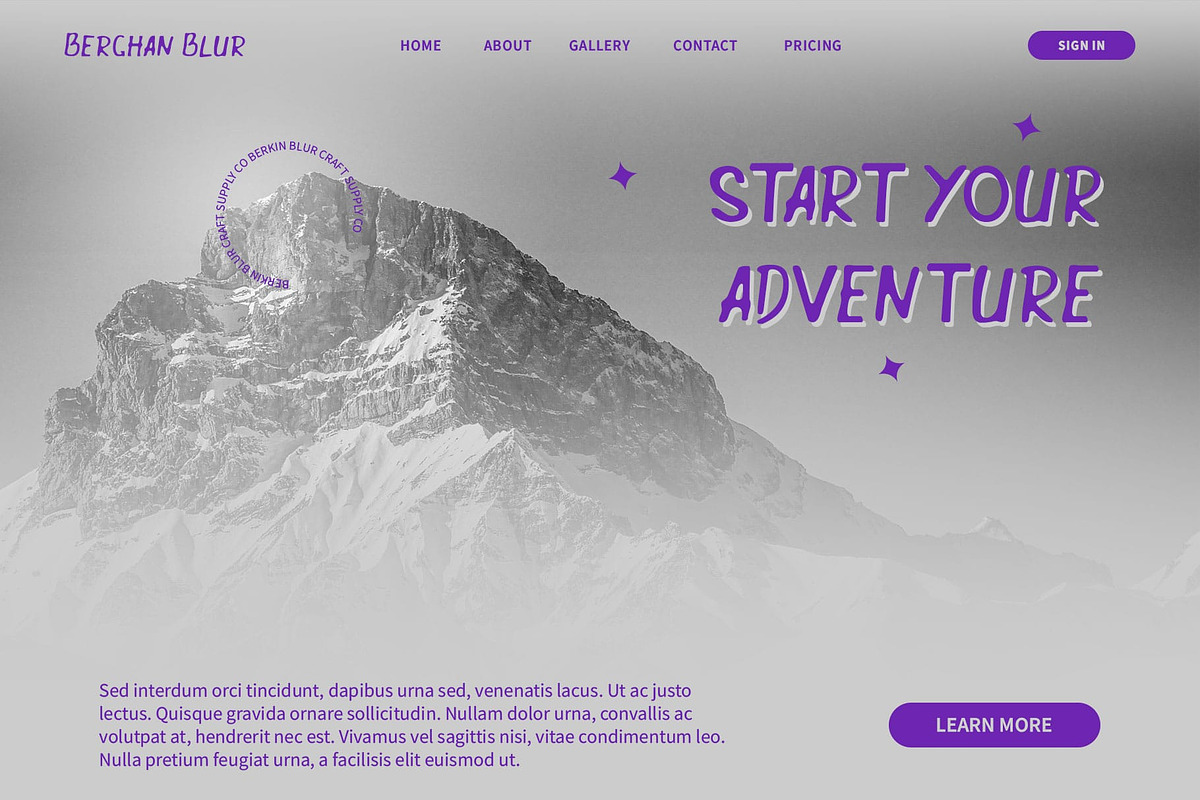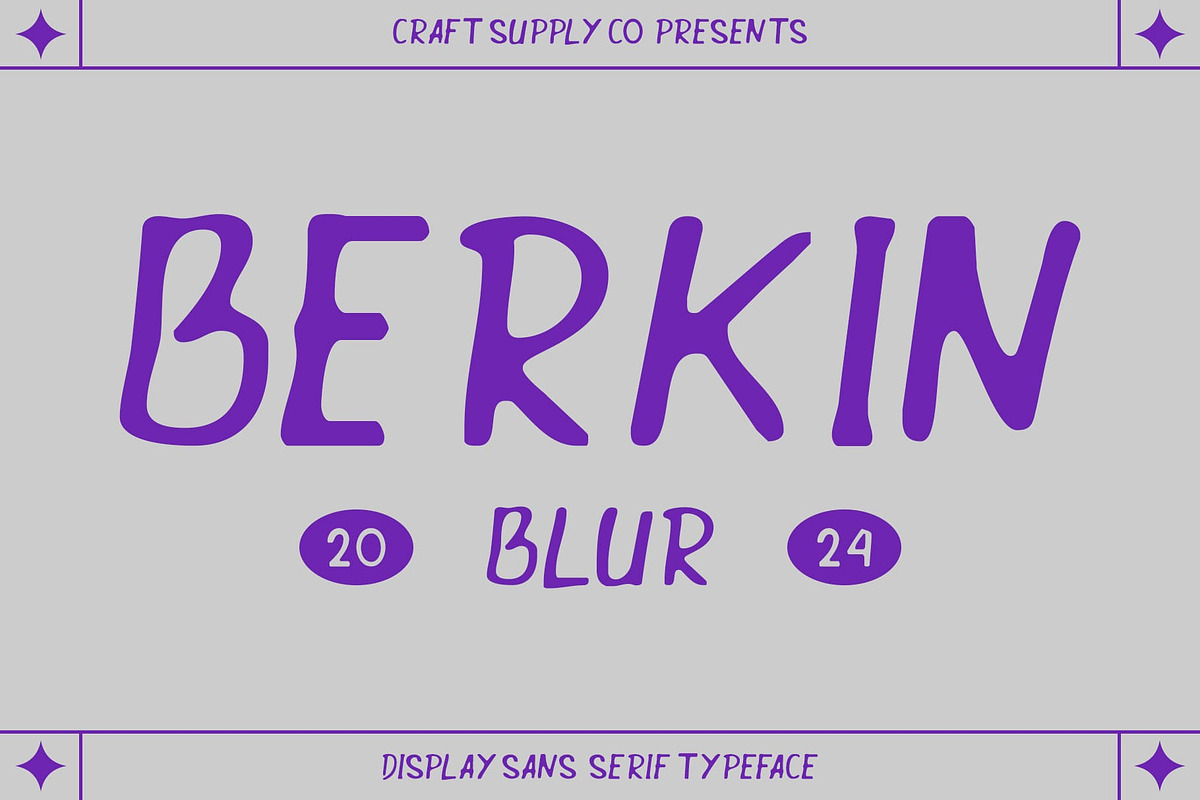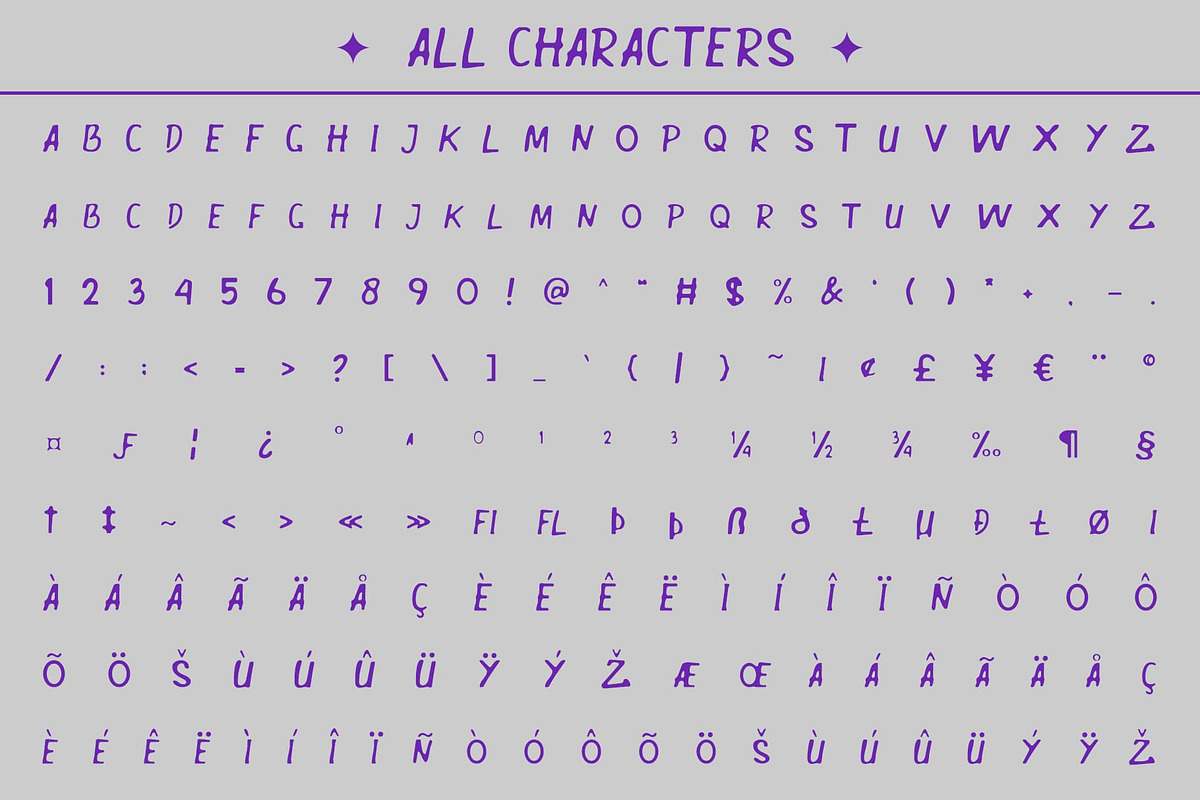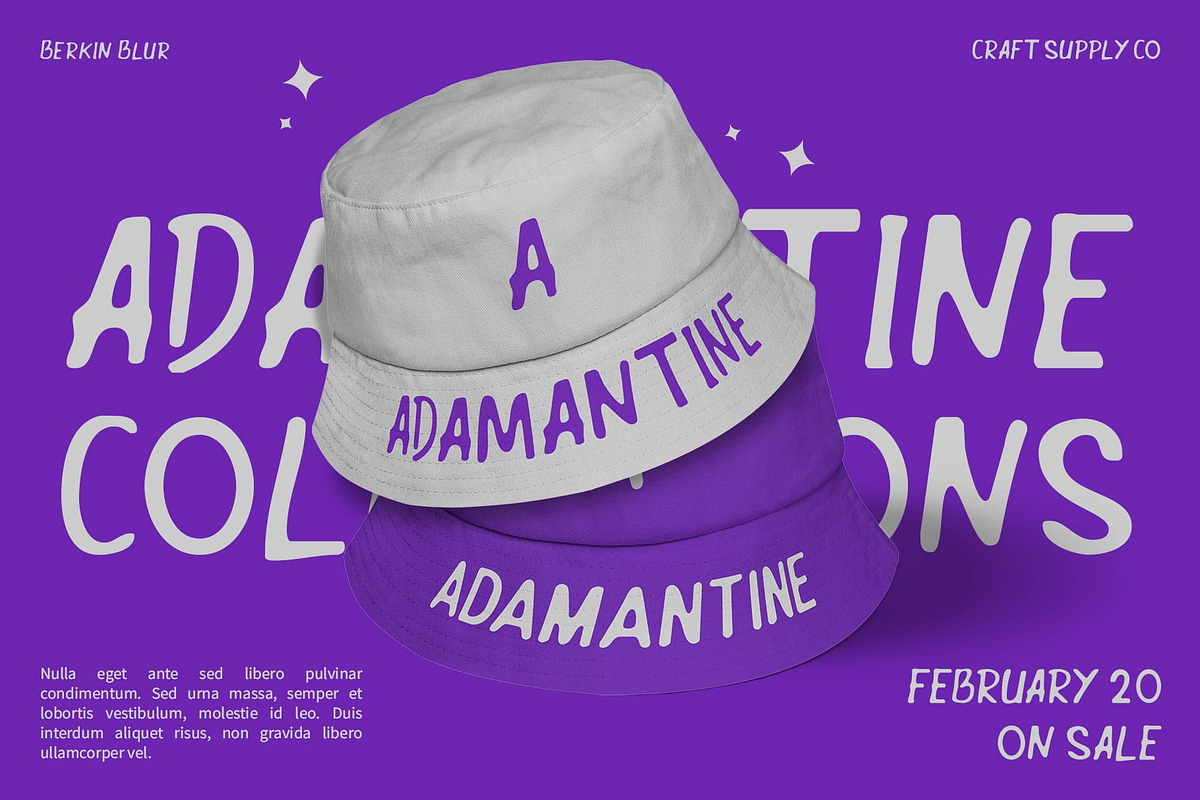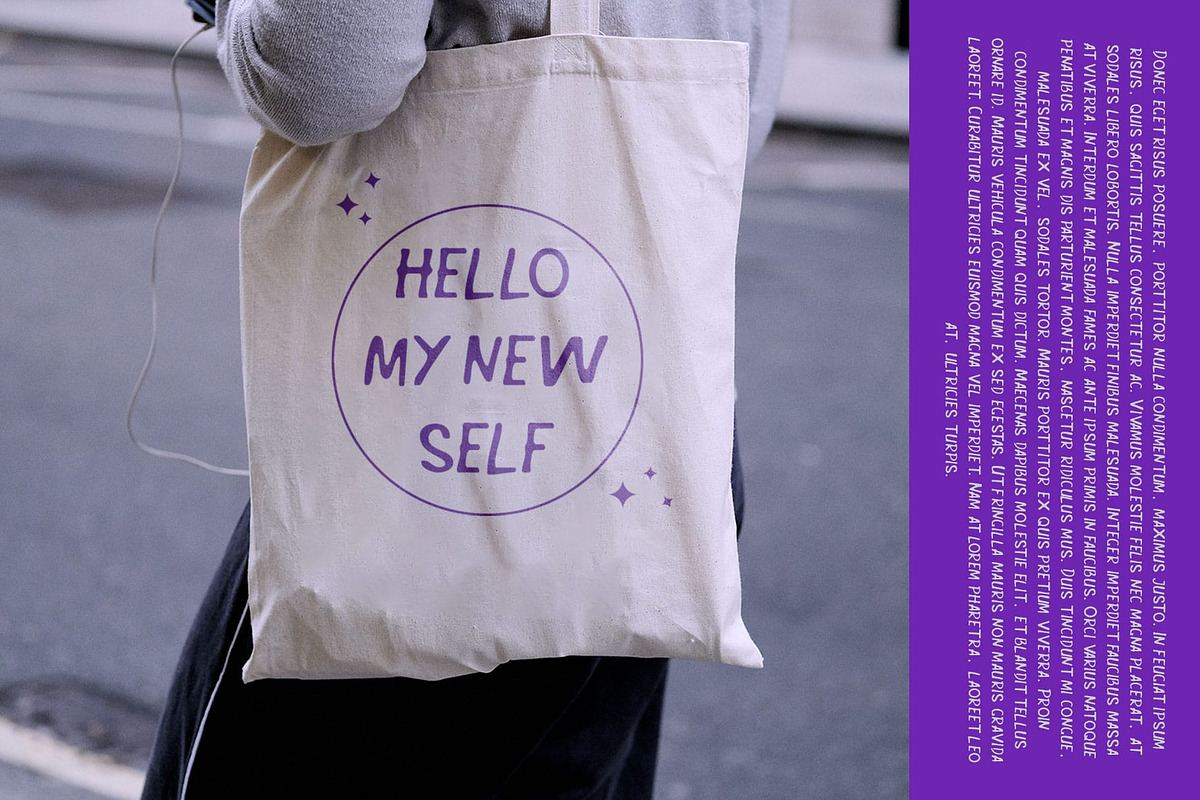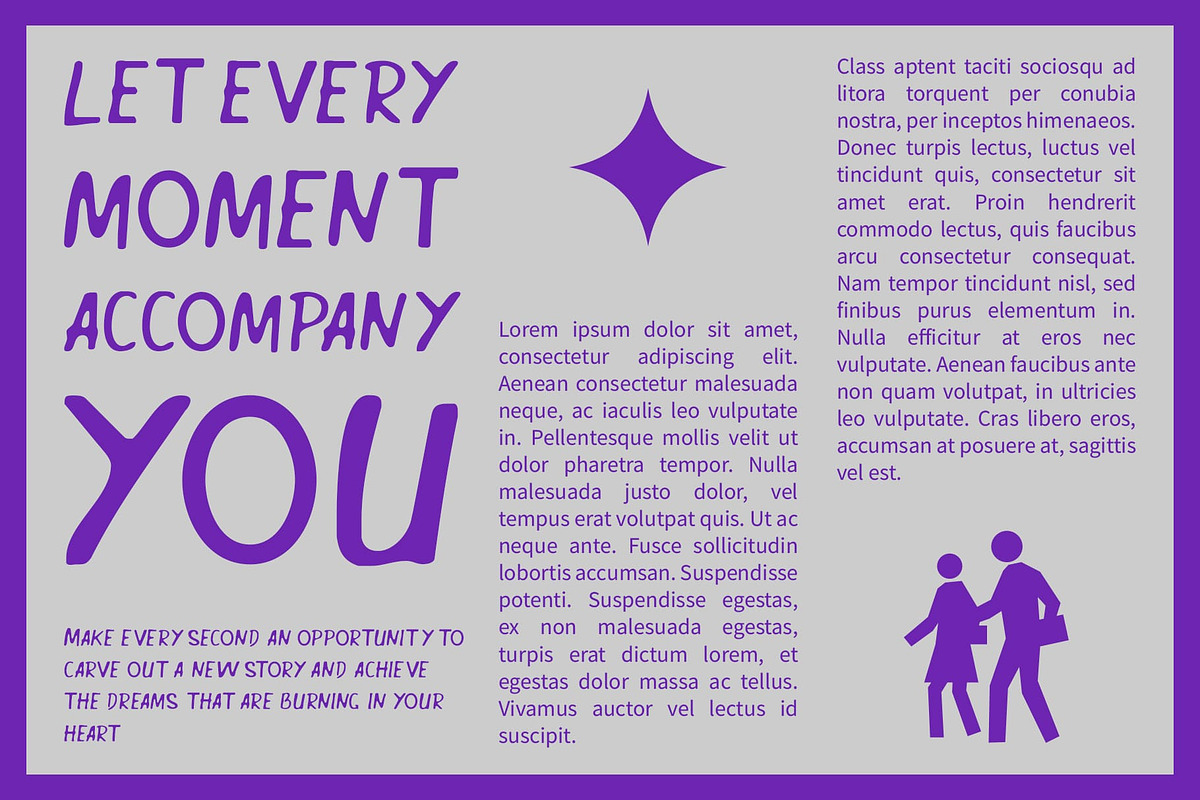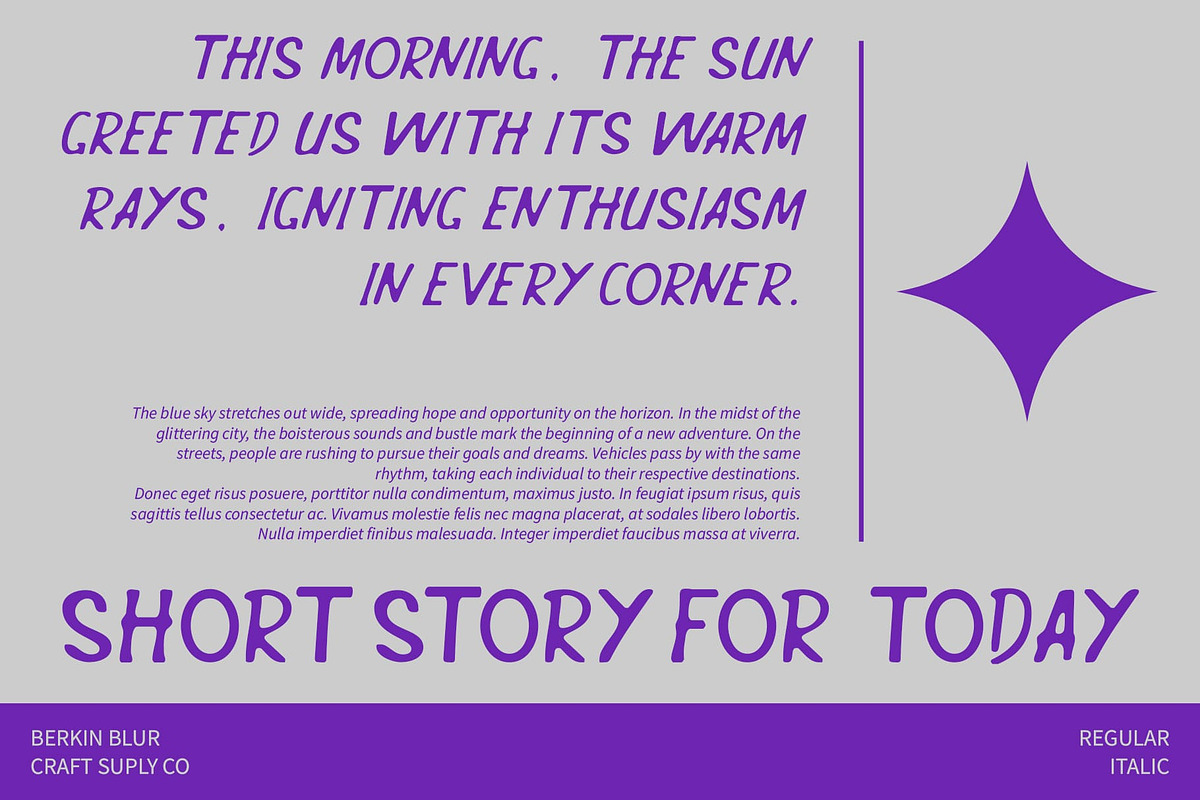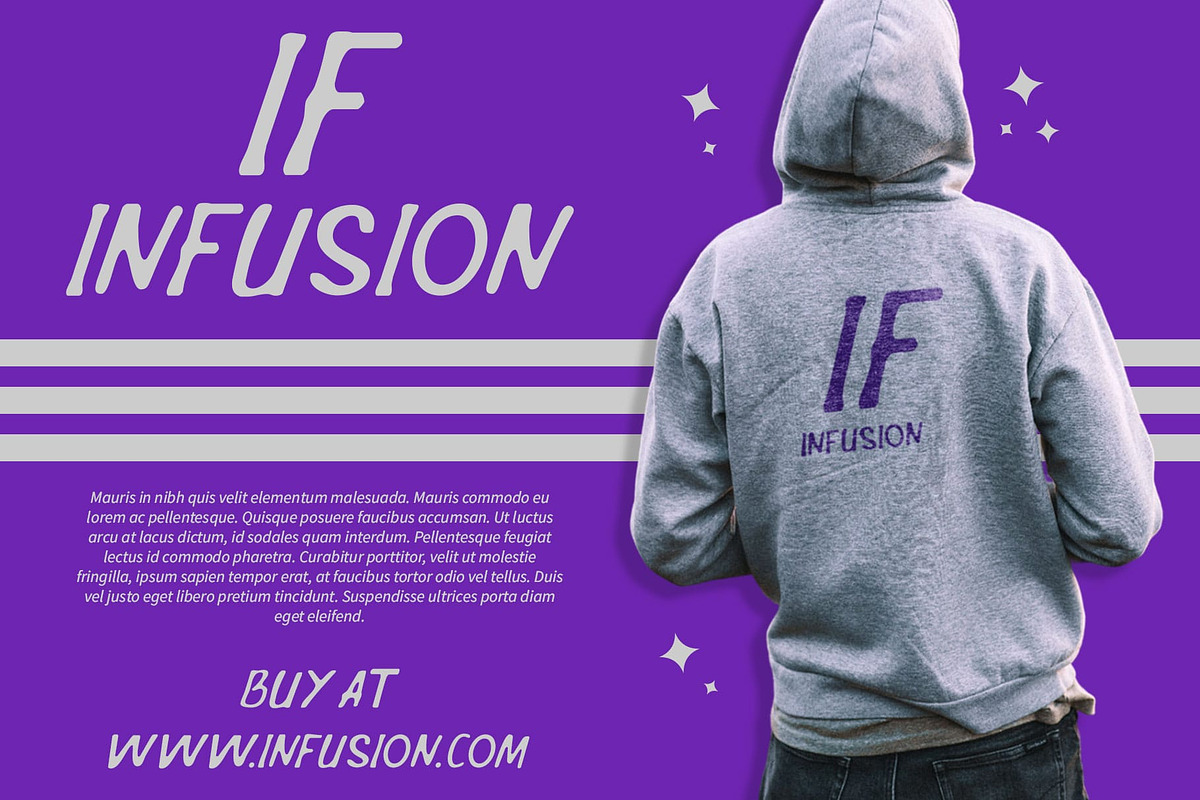
Berkin Blur
Berkin Blur: Fun and Creative Sans-serif Display Font
Cheerful and Unique Berkin Blur is a sans-serif display font with a fun shape and blur effect. Suitable for various designs, this font conveys a cheerful, creative, and unique impression, adding a playful touch to your projects.
Ideal for Captivating Designs Perfect for headlines, banners, and other display purposes, Berkin Blur ensures your message is both seen and remembered. Its fun shape and blur effect make it a delightful choice for designs aiming to create a visually appealing and cheerful impression.
Versatile and Engaging Despite its playful appearance, Berkin Blur remains versatile and engaging. Its display font format makes it suitable for a wide range of projects, from branding to digital designs, where a font with a fun and creative vibe is essential for making a statement.
Perfect for Adding a Playful Touch Berkin Blur is ideal for projects requiring a font with a playful touch. Whether you’re designing a poster, logo, or website, this font will undoubtedly add a distinct and memorable element to your designs.
- Berkin Blur Regular
- Berkin Blur Italic